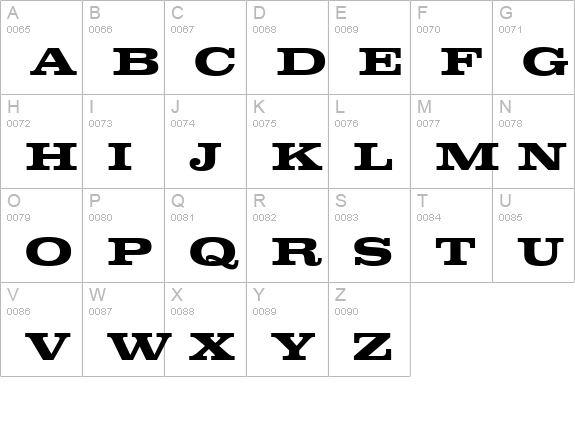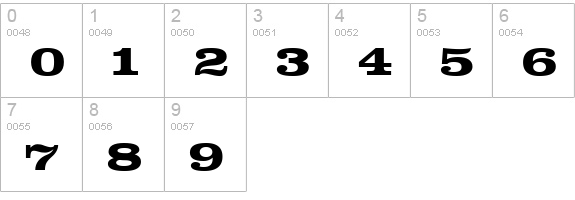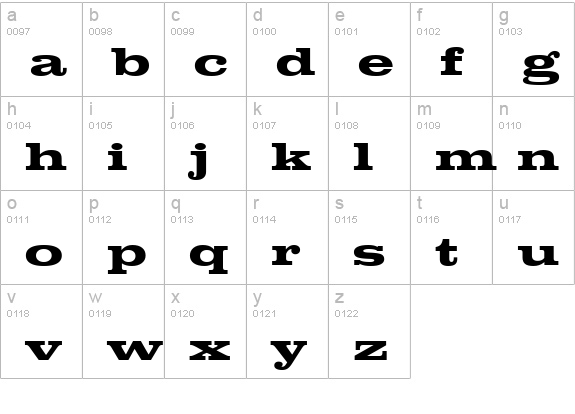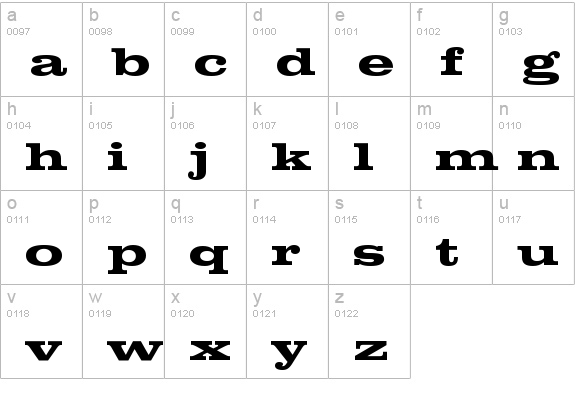
Clarendon Extended Bold is a strong, high-contrast, extended-width variant in the Clarendon typeface family \xE2\x80\x94 well suited to headlines, attention-grabbing titles, and strong calls-to-action.
Clarendon Extended Bold font is a timeless and versatile typeface that exudes strength and authority. Its bold and robust design makes it ideal for headlines, signage, and branding projects that demand attention. With its extended character set, Clarendon Extended Bold ensures that your message is clear and impactful. Best of all, this premium font is available for free download at FontsMarket.com. Whether you're a designer looking to elevate your work or a business owner seeking a powerful visual identity, Clarendon Extended Bold is the perfect choice. Download it today and make a bold statement with your typography.